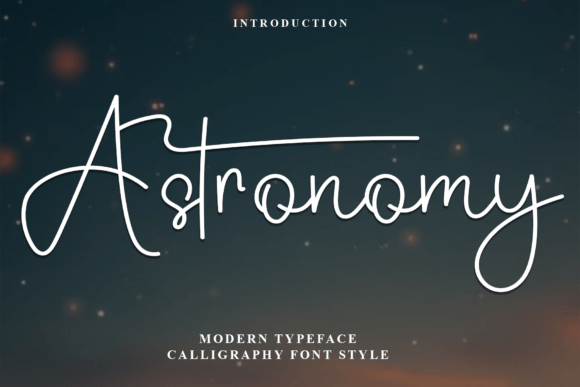
The Magic of Astronomy Font: A Festive Design Essential
An Honest Review of Astronomy Font
Astronomy Font has quickly become a favorite in my design arsenal, and here’s why:
- ✨ Festive and Whimsical: This font captures the spirit of the holiday season with its decorative elements and playful flair.
- ✅ PUA Encoded: The font is PUA encoded, making it easy to access all the amazing glyphs and ligatures.
- 🎉 Perfect for Holiday Projects: Astronomy Font is ideal for greeting cards, gift tags, and other holiday-themed designs.
While Astronomy Font is a delightful addition to any design project, there are a few minor quirks to be aware of:
- 🤔 Limited Use Cases: While the font is perfect for holiday projects, it may not be the best choice for more formal or professional designs.
- ⚠️ Glyph Access: While PUA encoding makes it easy to access glyphs, some users may need to familiarize themselves with the font’s features to get the most out of it.
The Backstory of Astronomy Font
Astronomy Font was designed with the holiday season in mind. The creator wanted to craft a font that captured the magic and wonder of this special time of year. Inspired by vintage holiday cards and festive decorations, Astronomy Font brings a touch of nostalgia and enchantment to any design.
| Is Astronomy Font suitable for body text? | Astronomy Font is best suited for display text, headings, and titles, rather than body text, due to its decorative and festive nature. |